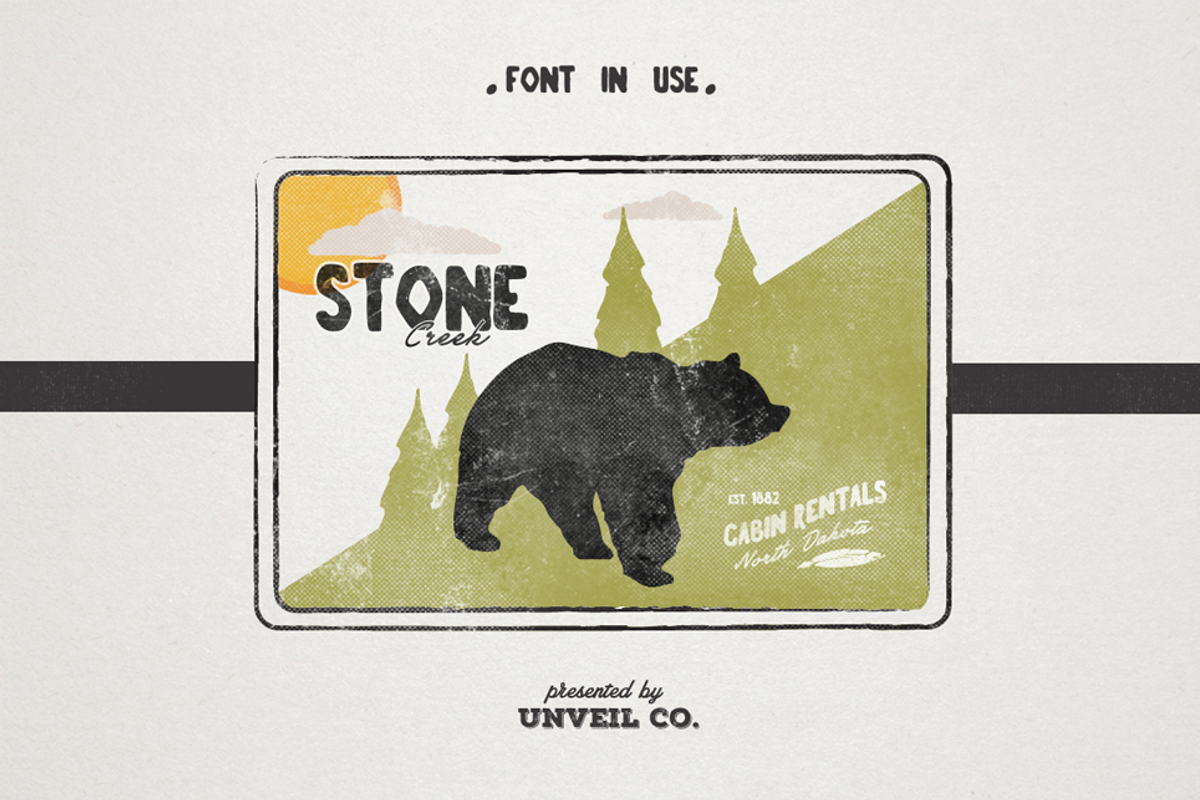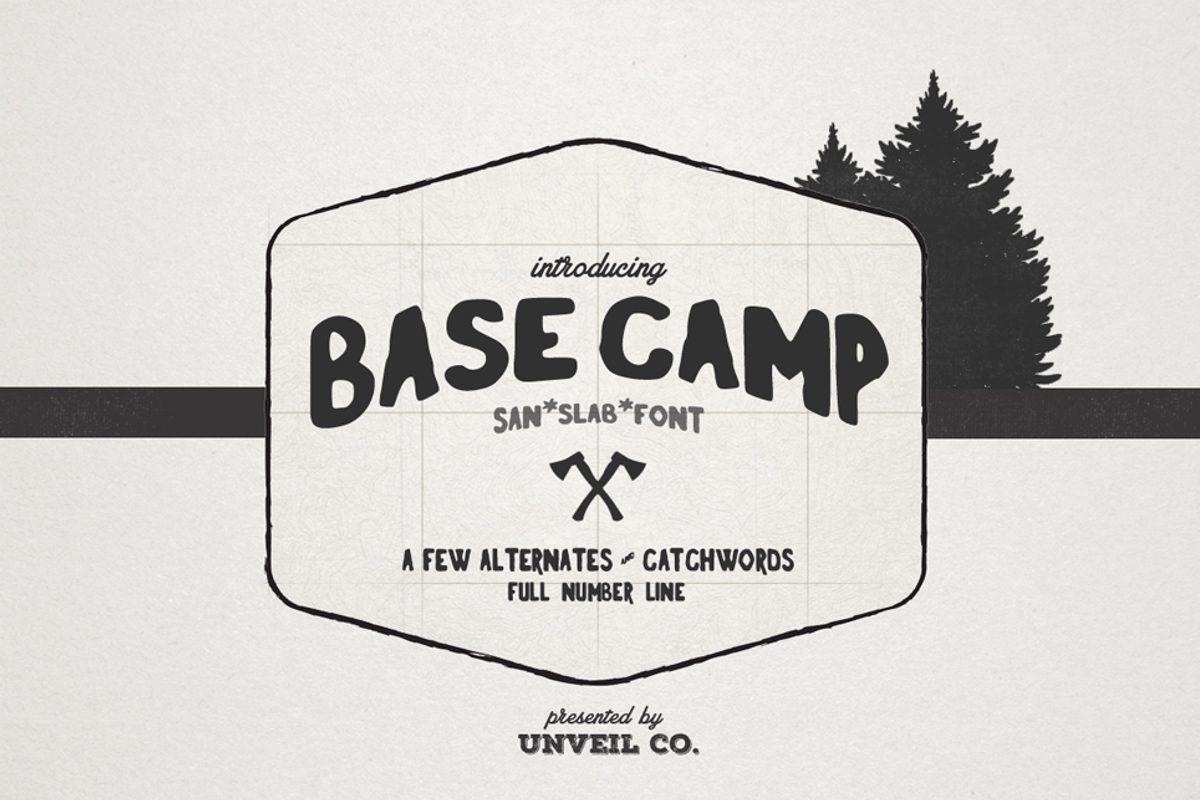
Basecamp Typeface
Basecamp Typeface by UnVeil Co. is a font selected for branding, posters, packaging, typography.
Why Basecamp Typeface is worth a look
Basecamp Typeface by UnVeil Co. fits naturally into Branding, posters, packaging, typography.